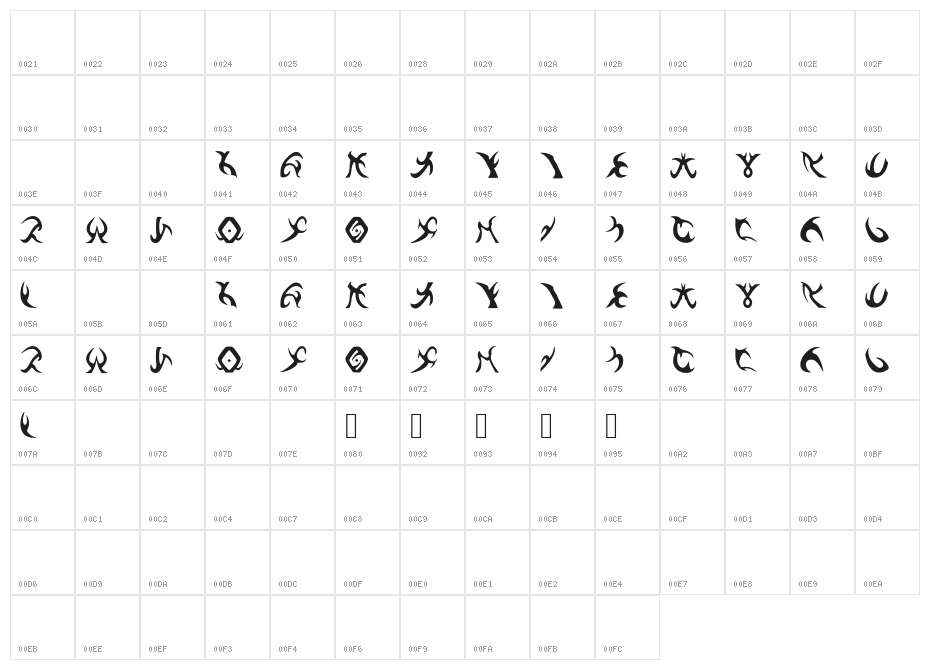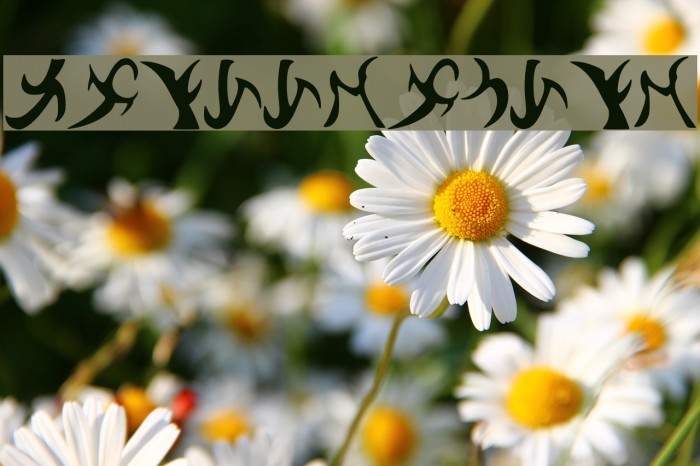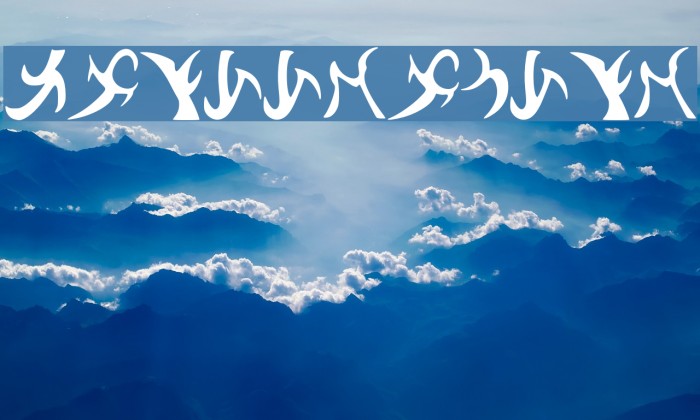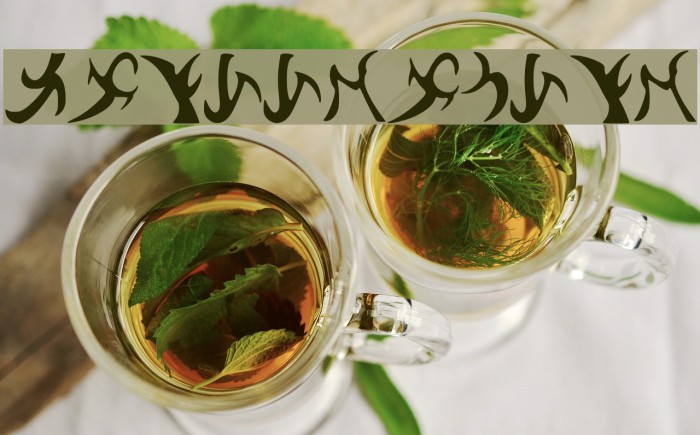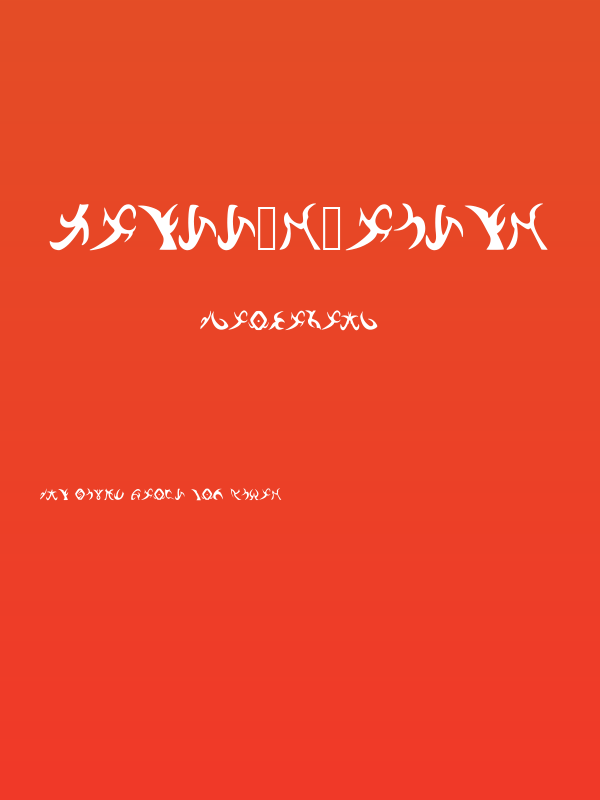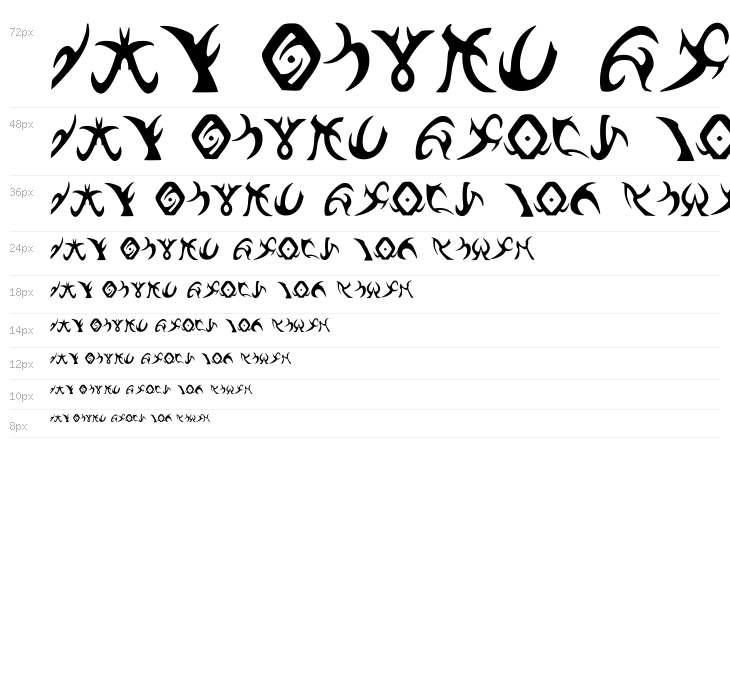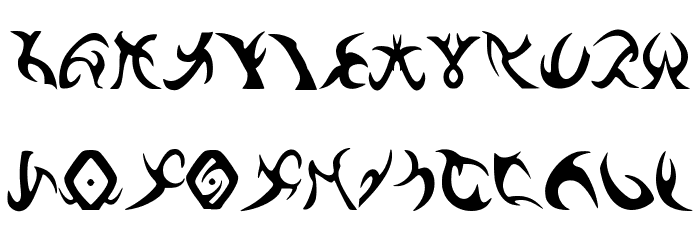
Drenn_s_Runes Font
Drenn_s_Runes Description
This font features a unique and mystical design, reminiscent of ancient runes or magical scripts. Each character is crafted with intricate curves and sharp edges, creating an enigmatic and otherworldly appearance. The bold strokes and high contrast between thick and thin lines give it a striking presence, making it ideal for fantasy-themed projects. The characters are evenly spaced, ensuring readability while maintaining the mysterious aesthetic. This font is perfect for creating a sense of mystery and magic in any design.
| Overall Style | Mystical, Enigmatic, Fantasy |
| Use Case | Headlines, Logos, Decorative text |
| Proposed Projects | Ideal for fantasy book covers, game design, mystical event posters, and themed merchandise. |